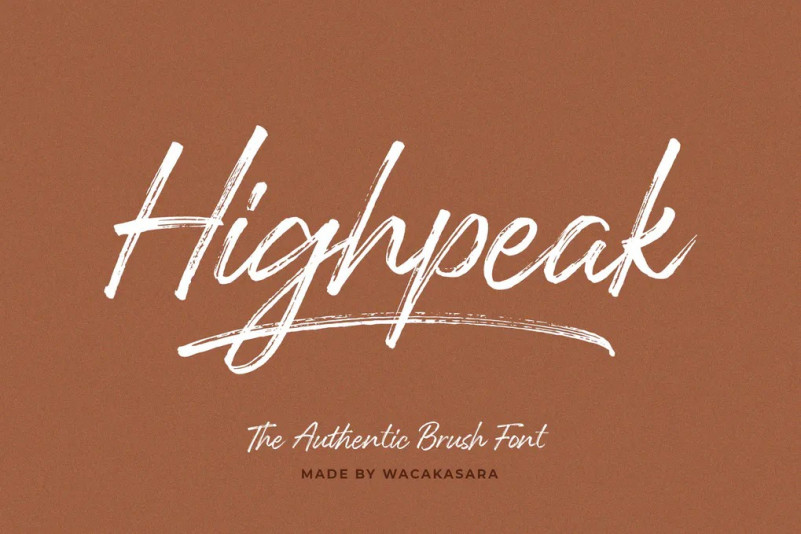
Highpeak Font
Highpeak is a rough brush script font with a dirty style and dramatic movement this font is great for your next creative project such as logos, printed quotes, invitations, cards, product packaging, headers, Logotype, Letterhead, Poster, Apparel Design, Label, and etc.